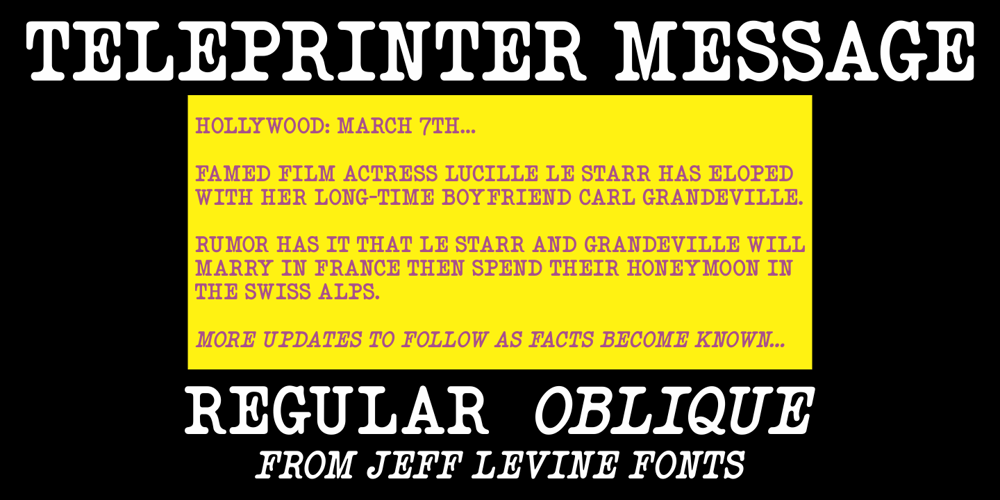
Teleprinter Message JNL
Teleprinter Message JNL font
Teleprinter Message JNL Font Family was designed by Jeff Levine and published by Jeff Levine. Teleprinter Message JNL contains 2 styles and family package options. The Oct. 1, 1935 issue of The Film Daily carried an ad for the film “Keeper of the Bees” featuring a reproduction of a laudatory telegram. The text of that telegram served as the basis for Teleprinter Message JNL, which is available in both regular and oblique versions.A teleprinter is a keyboard device that can send messages to a similar device and print out the mesage in plain text, such as the teletype machines found in newsrooms of the past.